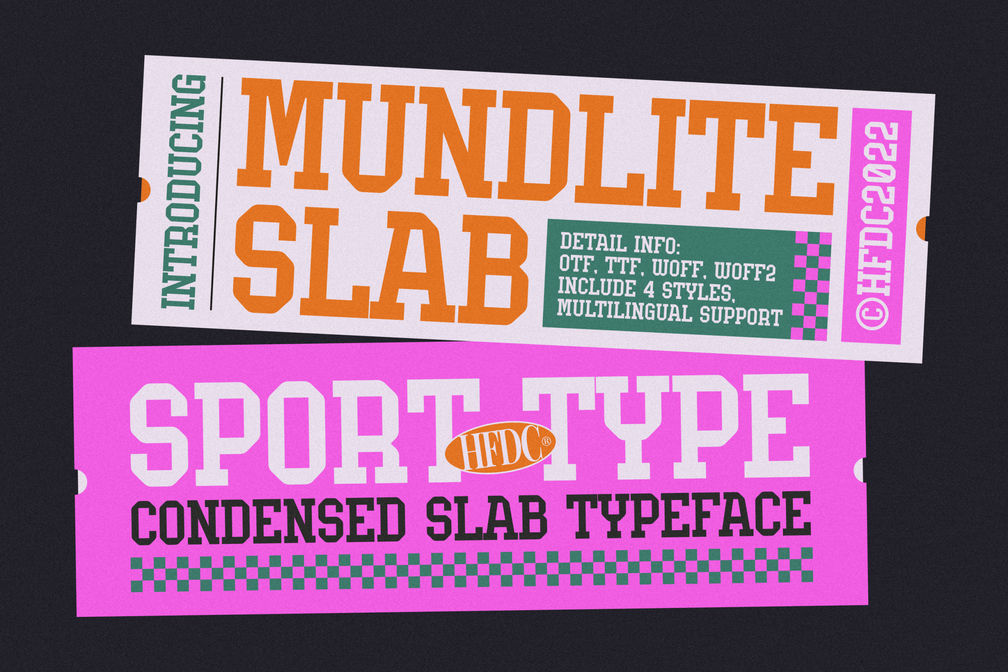
Mundlite Slab Serif – Athletic Headline Display Typeface
Capture vintage stadium energy and modern athletic grit with Mundlite Slab Serif.
Mundlite Slab Serif is a commanding, sport-inspired condensed slab typeface engineered to make an unforgettable visual statement. Rooted in the visual energy of classic stadium tickets, athletic posters, and collegiate team jerseys, this powerhouse typeface delivers maximum legibility and heavy-hitting personality. Its muscular serifs, structured condensed proportions, and athletic stance provide the decisive authority required for sports branding, game day posters, apparel prints, streetwear labels, and premium merchandise packaging.
Crafted with utmost precision, Mundlite Slab Serif effortlessly scales from dynamic sub-headlines to giant billboard titles while maintaining its bold, confident character. Whether designing promotional event passes, energetic banner displays, or varsity athletic identities, Mundlite Slab Serif provides the robust visual strength your commercial projects demand.
• Bold condensed slab serif letterforms with athletic aesthetic
• Complete uppercase and lowercase character set
• Comprehensive numerals, currency symbols, and standard punctuation
•  Multilingual accent support covering Western and Central European languages